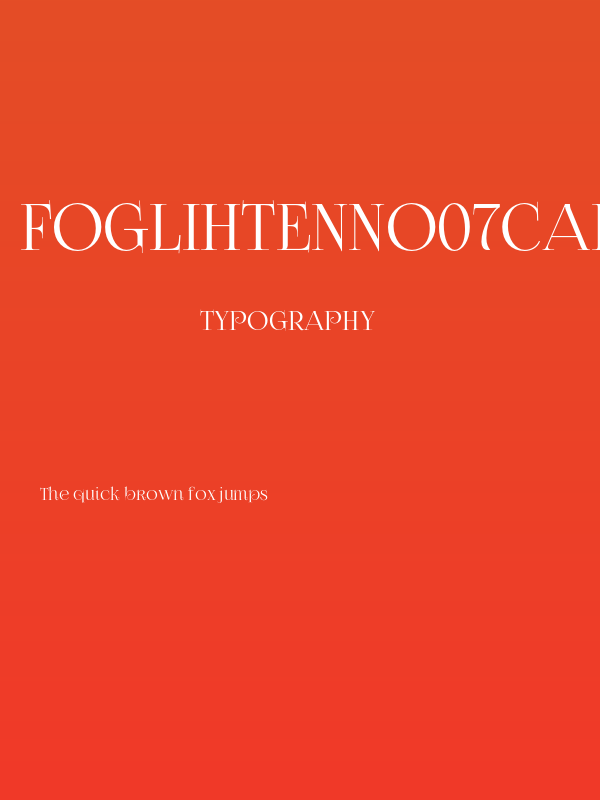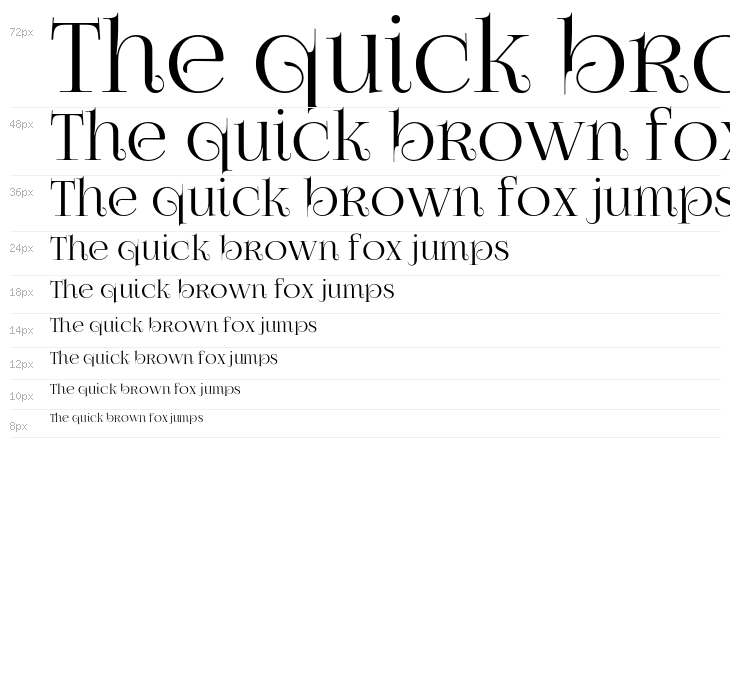
FoglihtenNo07calt Font
FoglihtenNo07calt Description
This font features a unique blend of classic and modern elements, characterized by its elegant serifs and high contrast between thick and thin strokes. The uppercase letters exhibit a sophisticated flair with subtle curves and sharp edges, while the lowercase letters maintain a graceful continuity. The numerals are distinct and clear, ensuring readability. Special characters are designed with a touch of elegance, making them stand out without overpowering the overall aesthetic. This font is ideal for projects that require a touch of sophistication and style.
| Proposed Projects | Ideal for luxury branding, editorial design, wedding invitations, and high-end product packaging. |